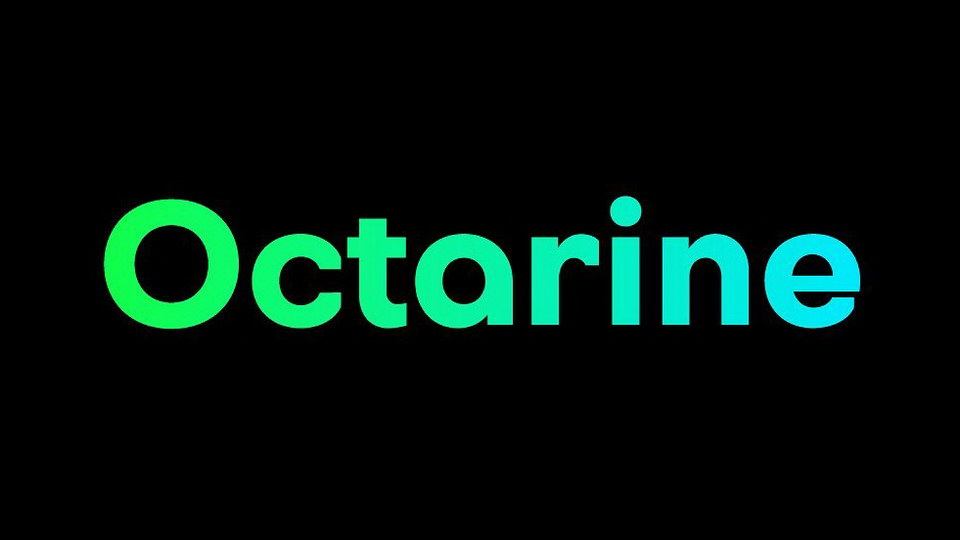
Download Octarine typeface,a geometric sans serif font family in two weights and Italics, which has its roots in classic Bauhaus times. Octarine is based on geometric grid, and its shapes are nice and soft.
Designer: Alex Slobzheninov